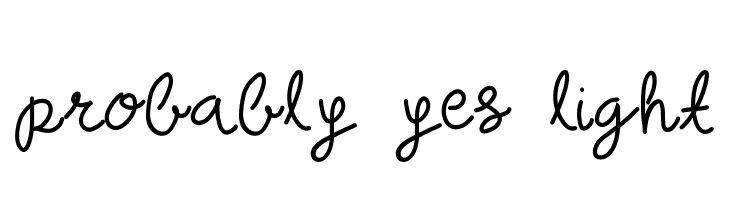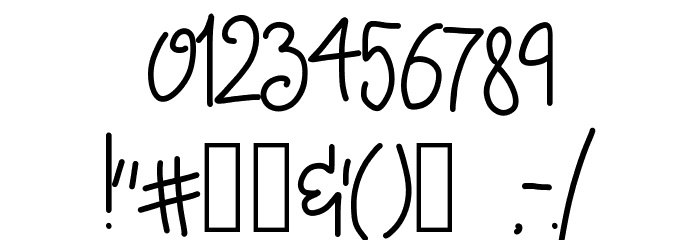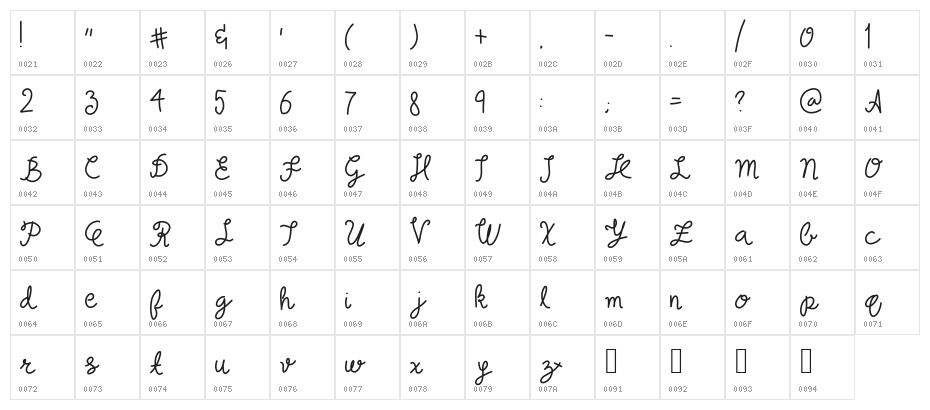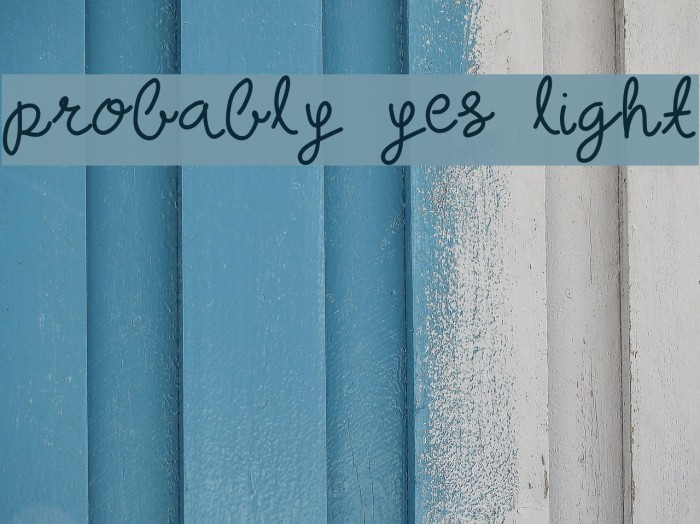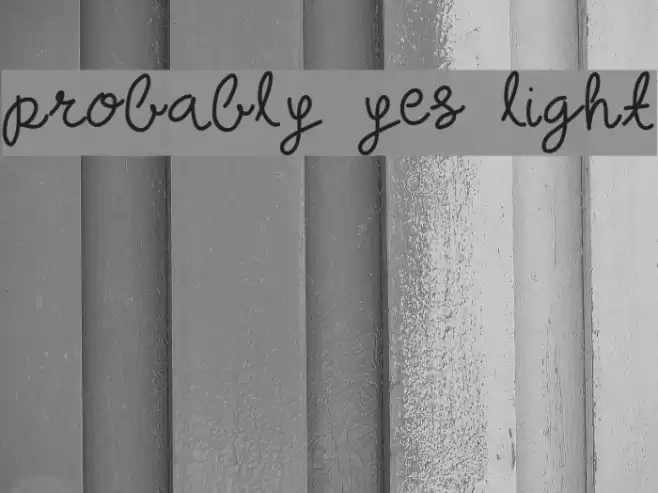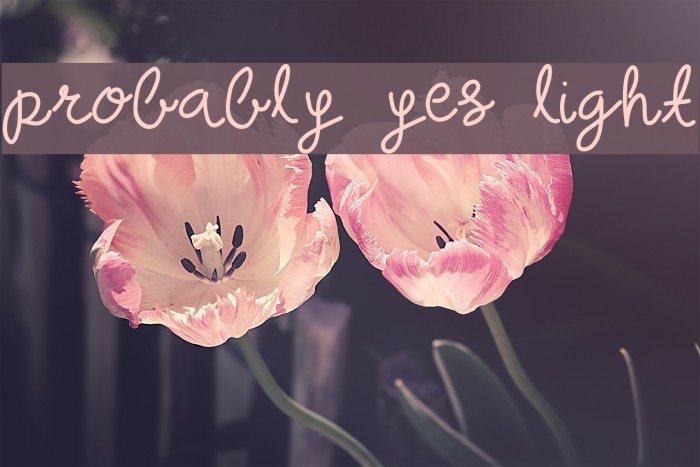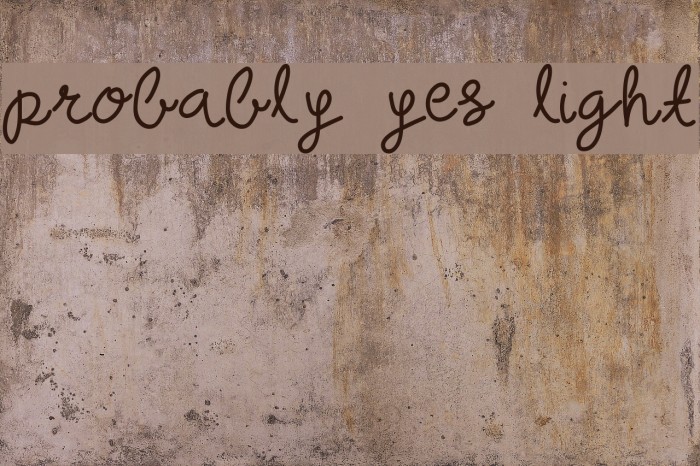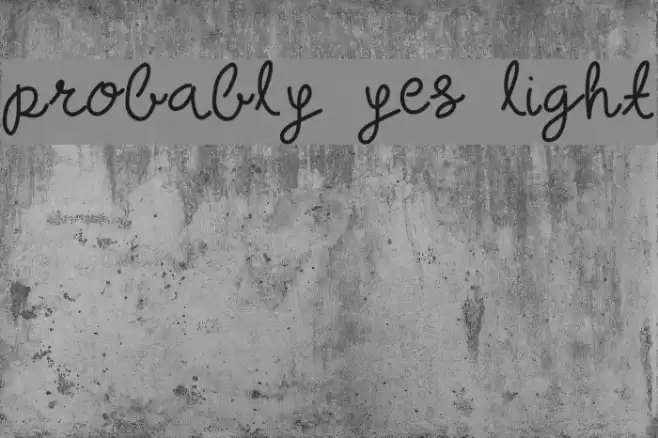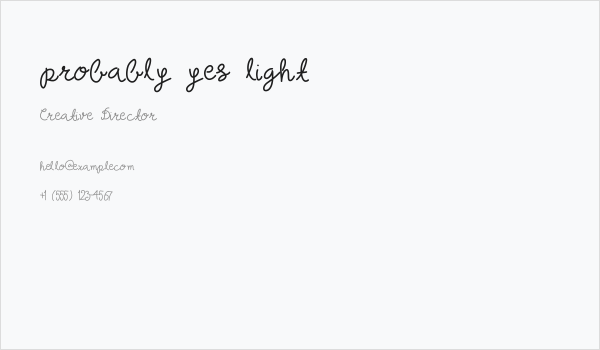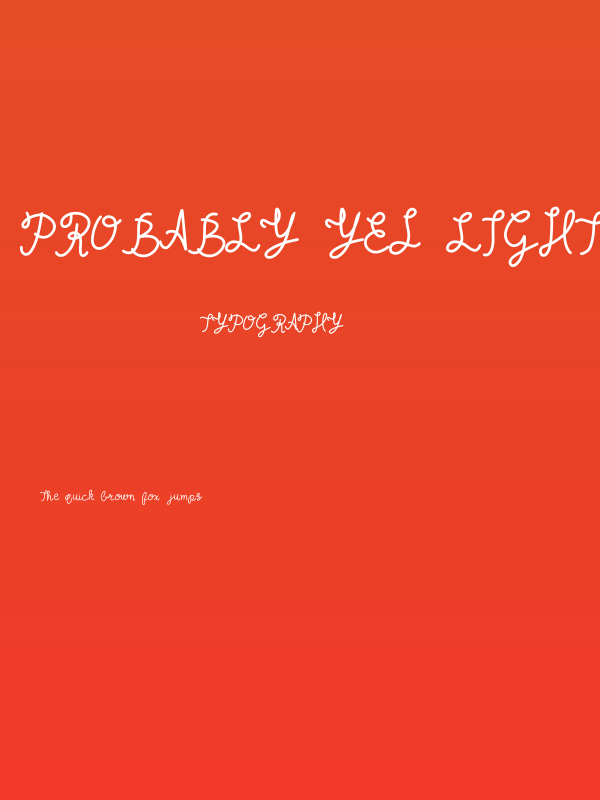
probably yes light Font
probably yes light Description
This font features a playful and whimsical script style with smooth, flowing lines that mimic natural handwriting. The characters are connected, giving it a cursive appearance, yet maintain a clear readability. The uppercase letters are slightly more ornate, with elegant loops and curves, while the lowercase letters are simpler but still maintain the overall fluidity. The numbers and special characters follow the same style, ensuring consistency throughout. This font exudes a casual and friendly vibe, making it suitable for informal and creative projects.
| Overall Style | Casual, Whimsical |
| Use Case | Greeting cards, Invitations, Personal branding |
| Proposed Projects | Ideal for greeting cards, invitations, personal branding, and creative projects that require a friendly and informal touch. |